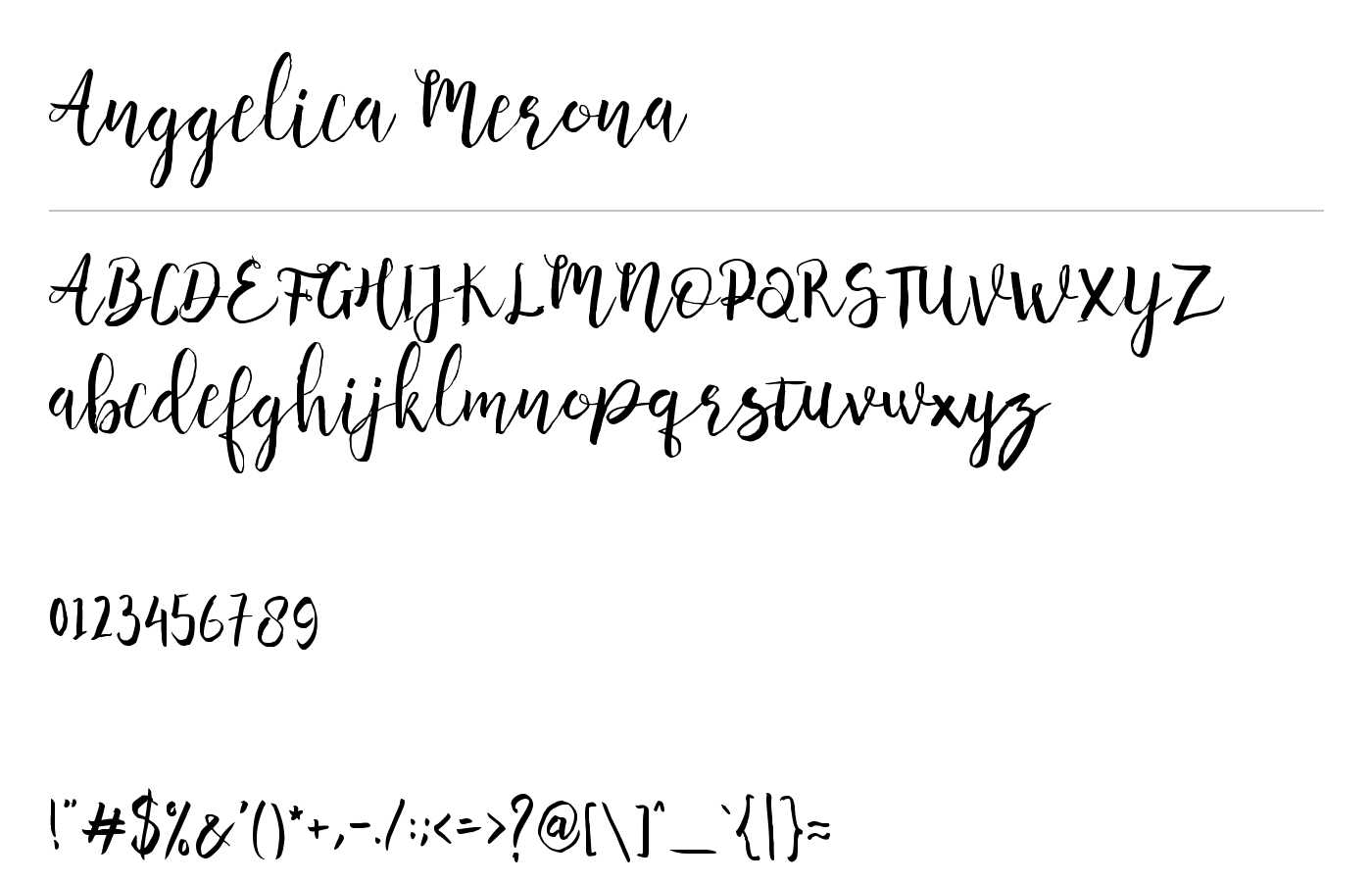
Anggelica Merona is a charming script font with a hand-drawn, casual elegance. Its lively strokes and slightly uneven letterforms give it a friendly, personal feel, making it perfect for creative projects, invitations, and branding that seek a warm, approachable style. This font shines best in headlines and decorative uses where its unique personality can truly stand out.
Anggelica Merona Font
About Anggelica Merona Font
| Font family | Anggelica Merona Font |
| Designer | Aldedesign 2019 |